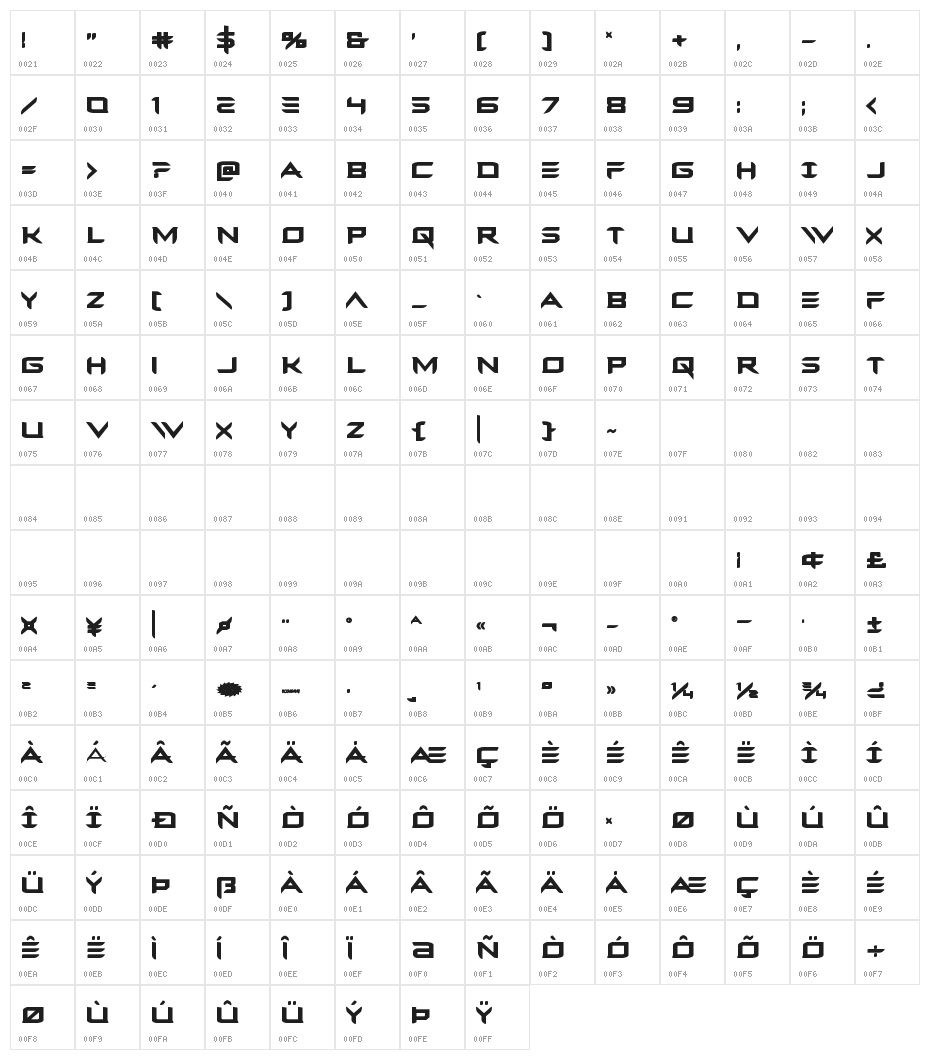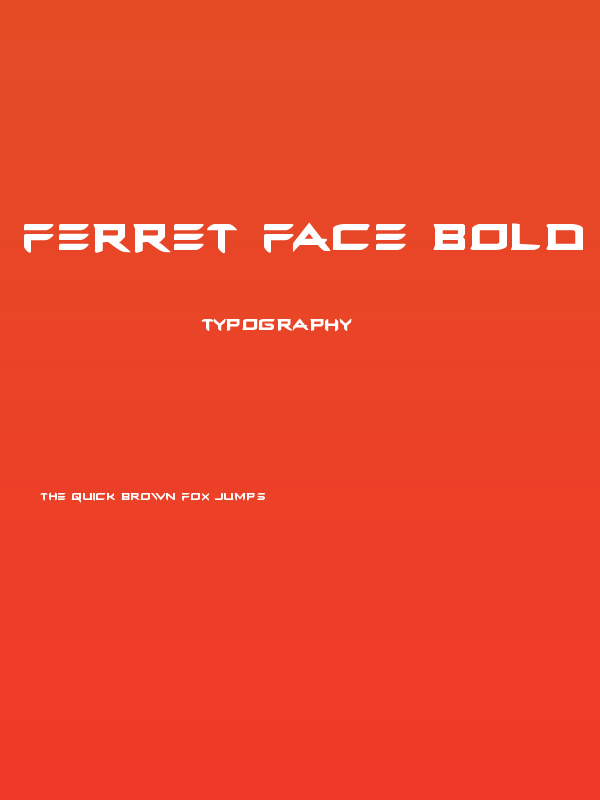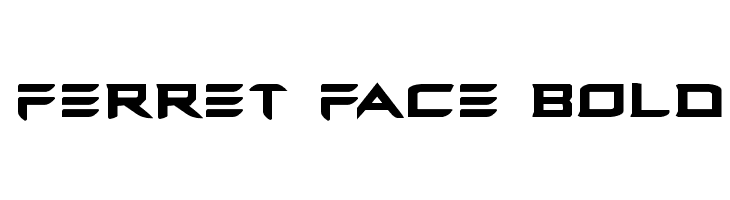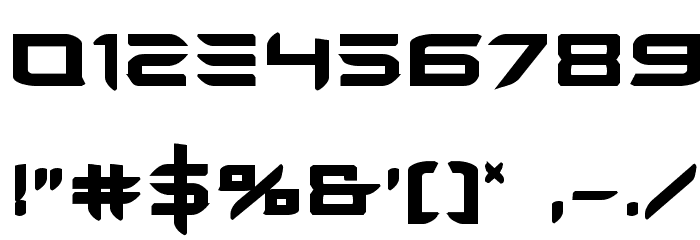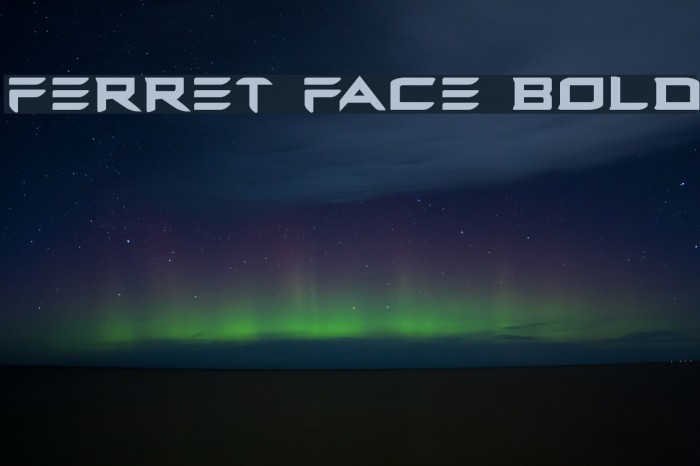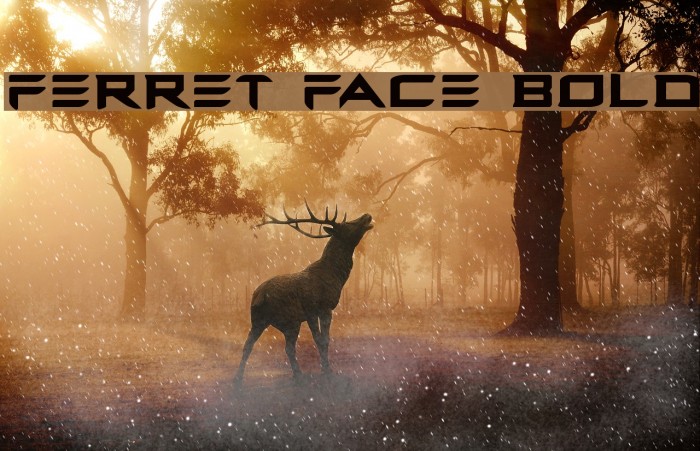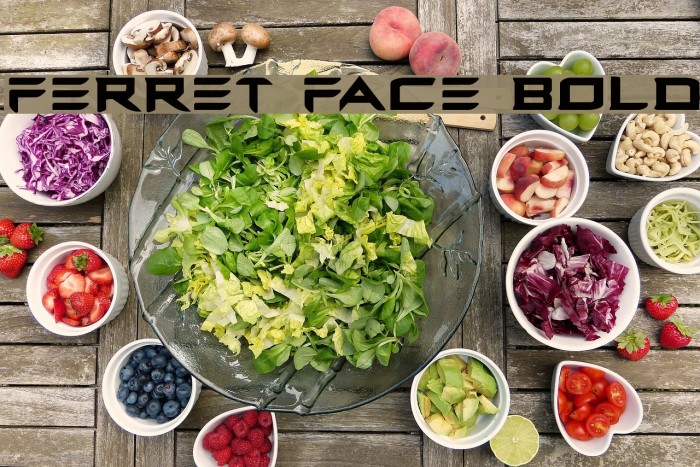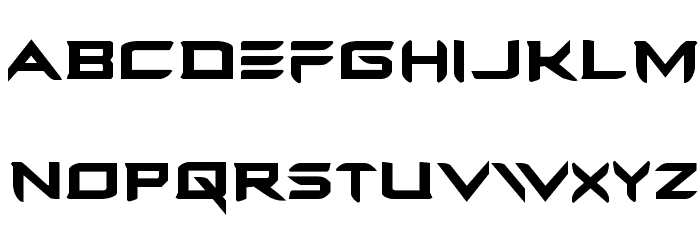
Ferret Face Bold Font
Ferret Face Bold Description
This font features a bold and futuristic design with sharp, angular edges and a geometric structure. The characters are crafted with a unique style that combines both modern and sci-fi elements, making it stand out with its distinctive appearance. The uppercase and lowercase letters maintain a consistent weight, providing a cohesive look across the alphabet. The numerals and special characters follow the same design principles, ensuring uniformity. This font's boldness and unique style make it ideal for projects that require a strong visual impact.
FERRET-FACE-BOLD UPPERCASE
FERRET-FACE-BOLD LOWERCASE
FERRET-FACE-BOLD OTHER CHARS
| Overall Style | Futuristic, Modern |
| Proposed Projects | Ideal for sci-fi themed designs, video game graphics, movie posters, and branding that requires a modern, edgy look. |